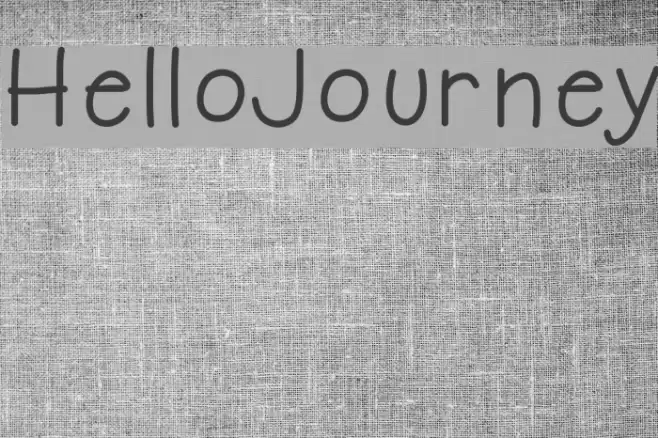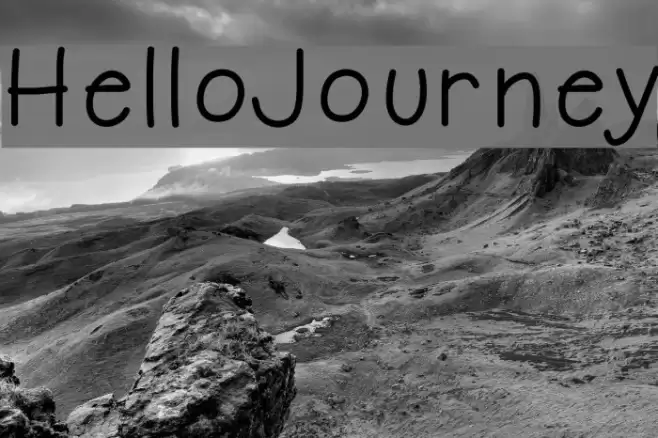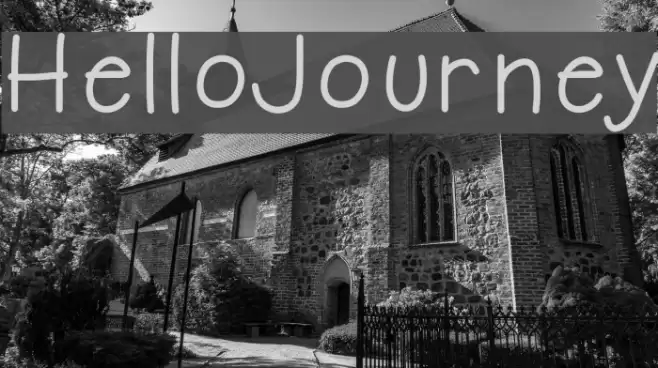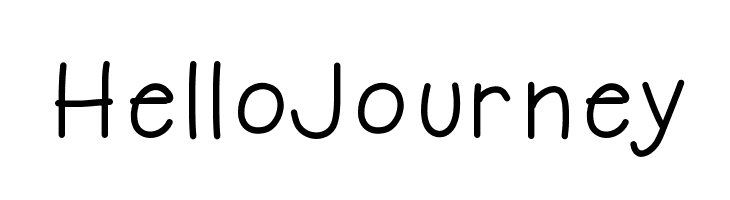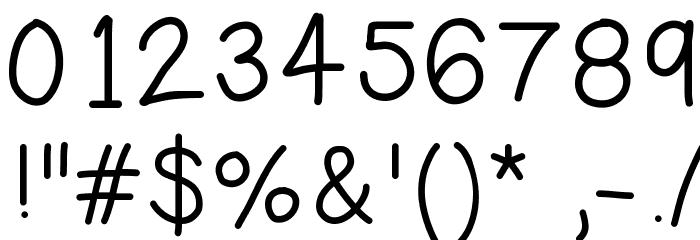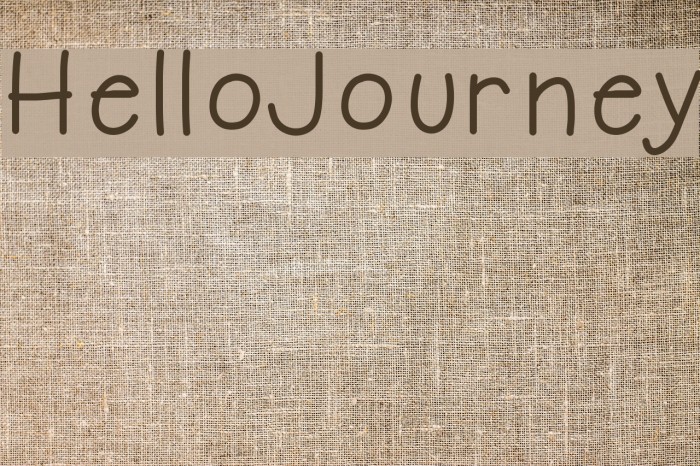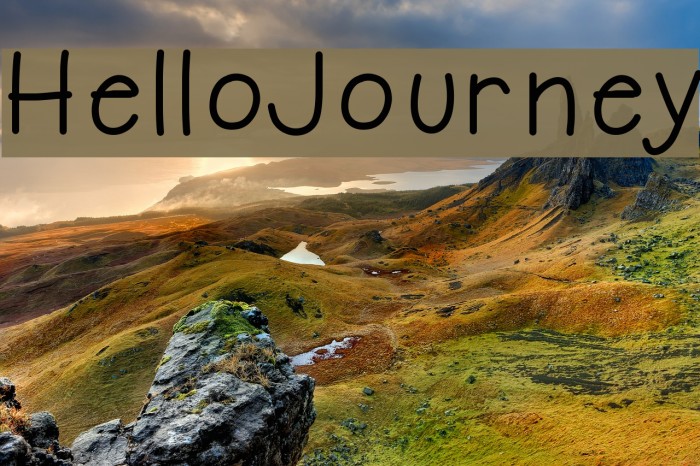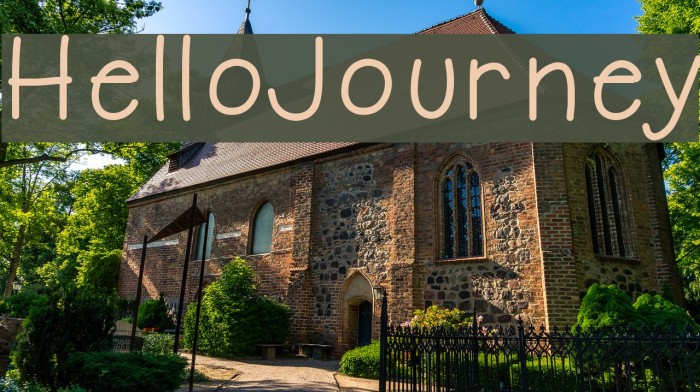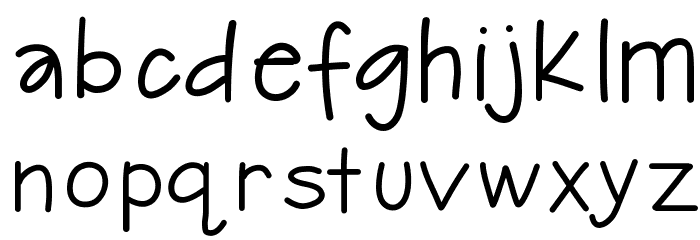
HelloJourney
This font features a playful and casual handwritten style that exudes a friendly and approachable vibe. The characters are rounded with a slightly uneven baseline, giving it a natural, hand-drawn appearance. The uppercase letters are bold and prominent, while the lowercase letters maintain a consistent flow with a slightly larger x-height. The numerals are clear and easy to read, matching the overall style of the alphabet. Special characters are well-integrated, maintaining the font's cohesive look. This font is versatile, suitable for both digital and print media, and can add a personal touch to any project.
A playful, handwritten font with a friendly and casual style.
- Proposed Projects: Ideal for children's books, greeting cards, personal blogs, and informal branding.
- Overall Style: Casual
- Use Case: Headlines, Logos, Informal Text